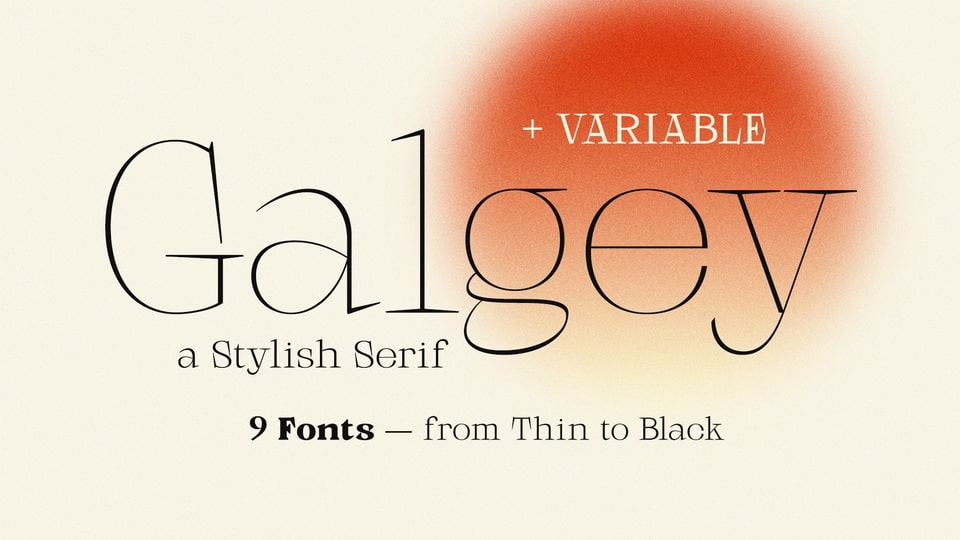
Download Galgey font, a display serif typeface that perfectly combines timeless elegance and modern sophistication. Galgey’s refined lines and sleek curves are ideal for high-end branding, luxury packaging, and editorial design.
Designer: Craft Supply Co